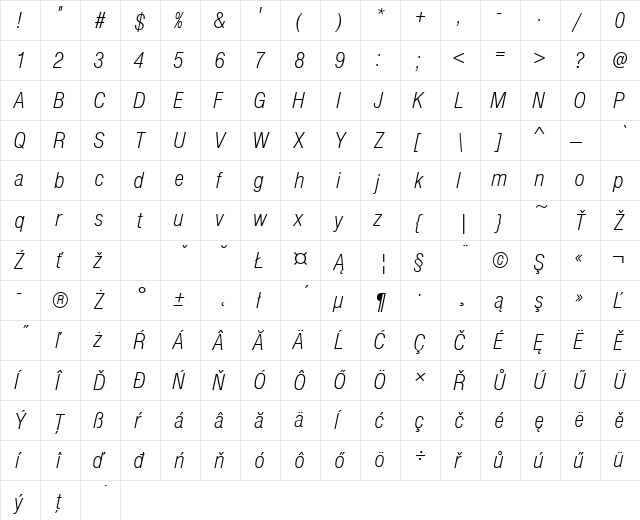
NimbusSanPEELigCon Italic
Design Context for NimbusSanPEELigCon Typeface
NimbusSanPEELigCon is a composed and adaptable typeface that performs quietly and consistently across a wide range of design contexts. The slanted form adds forward momentum and visual energy.
Pro Tip: Try NimbusSanPEELigCon for annotation and caption copy alongside an upright companion — the contrast in angle creates a dynamic but ordered typographic system.